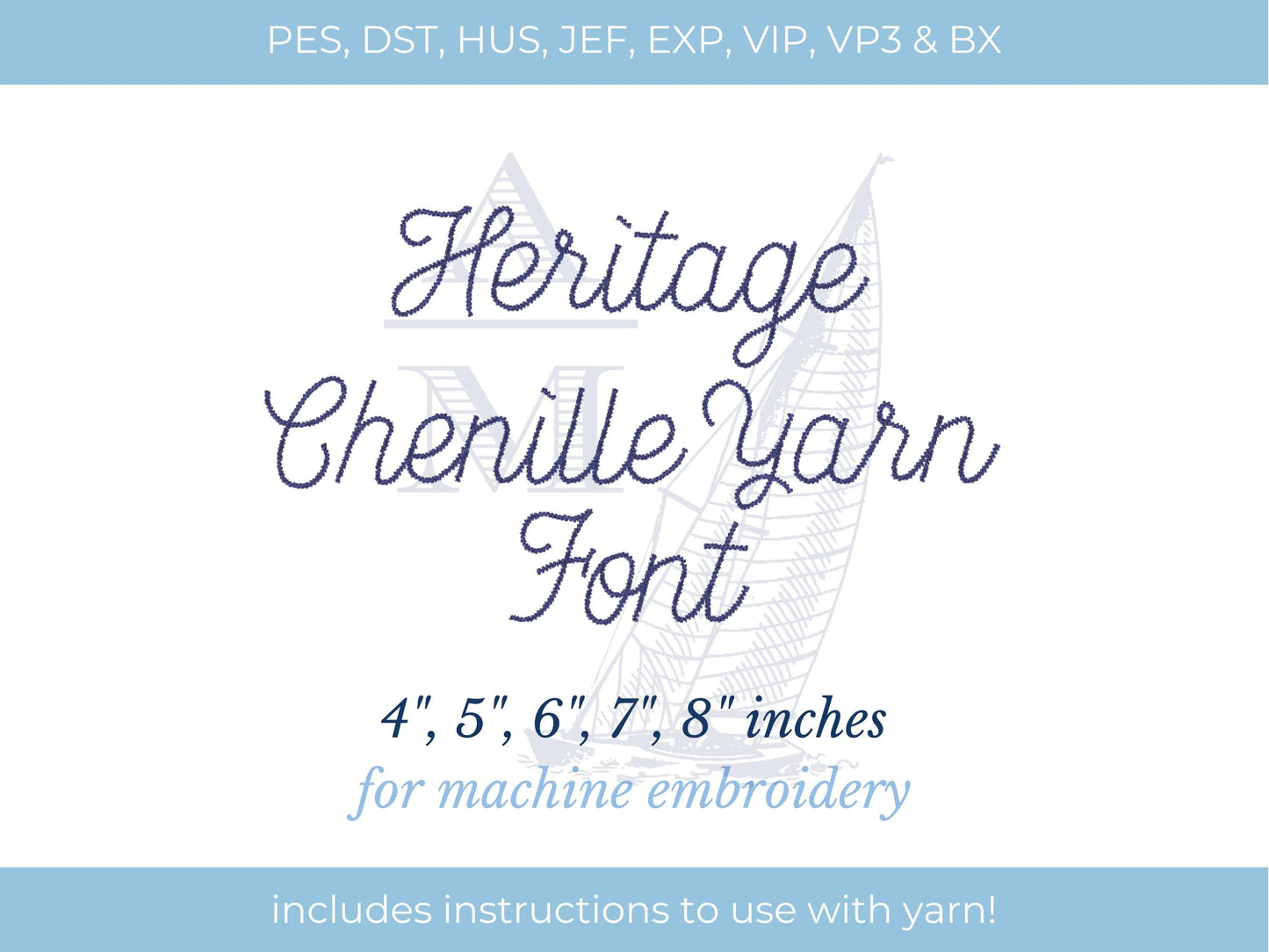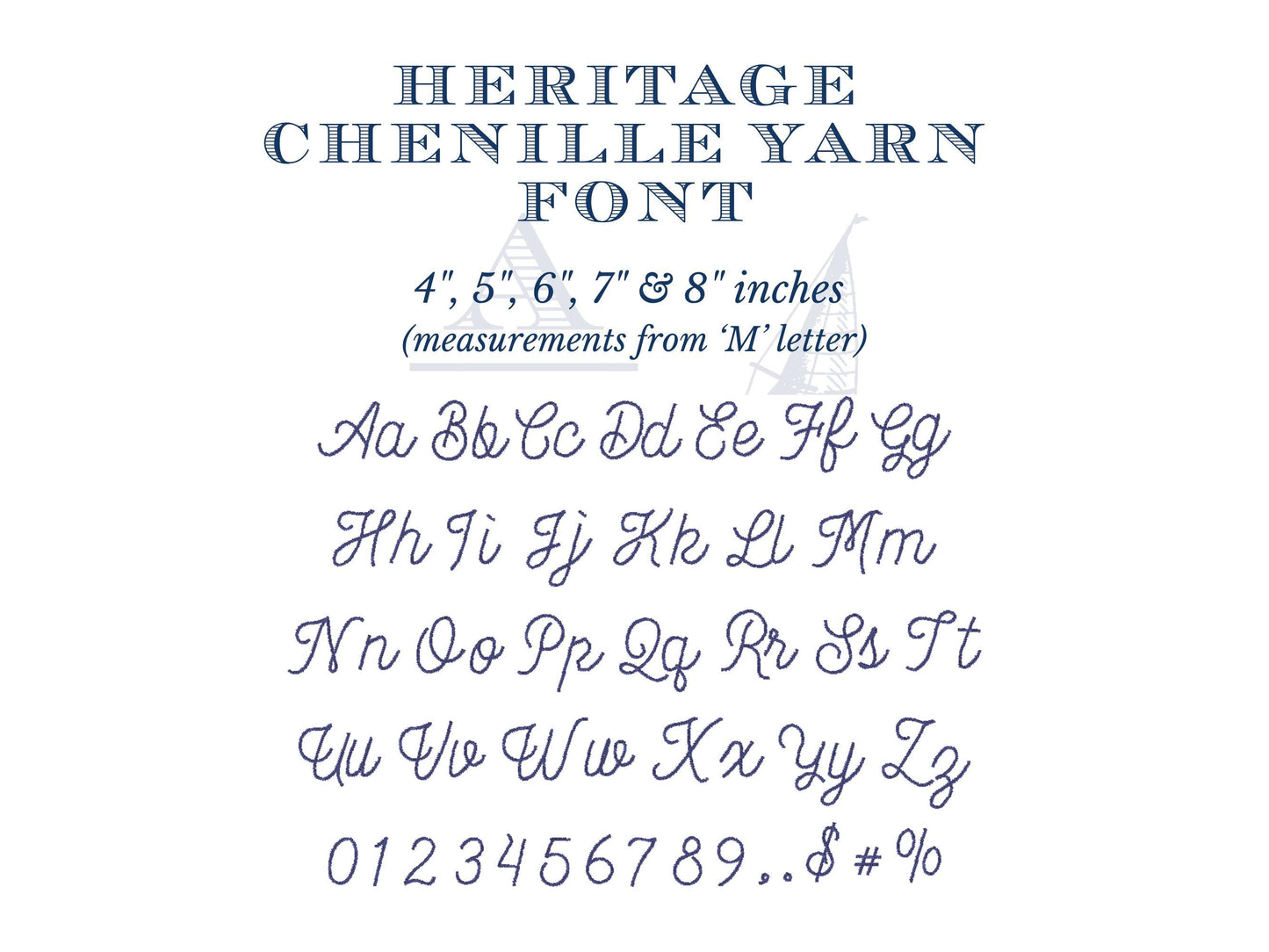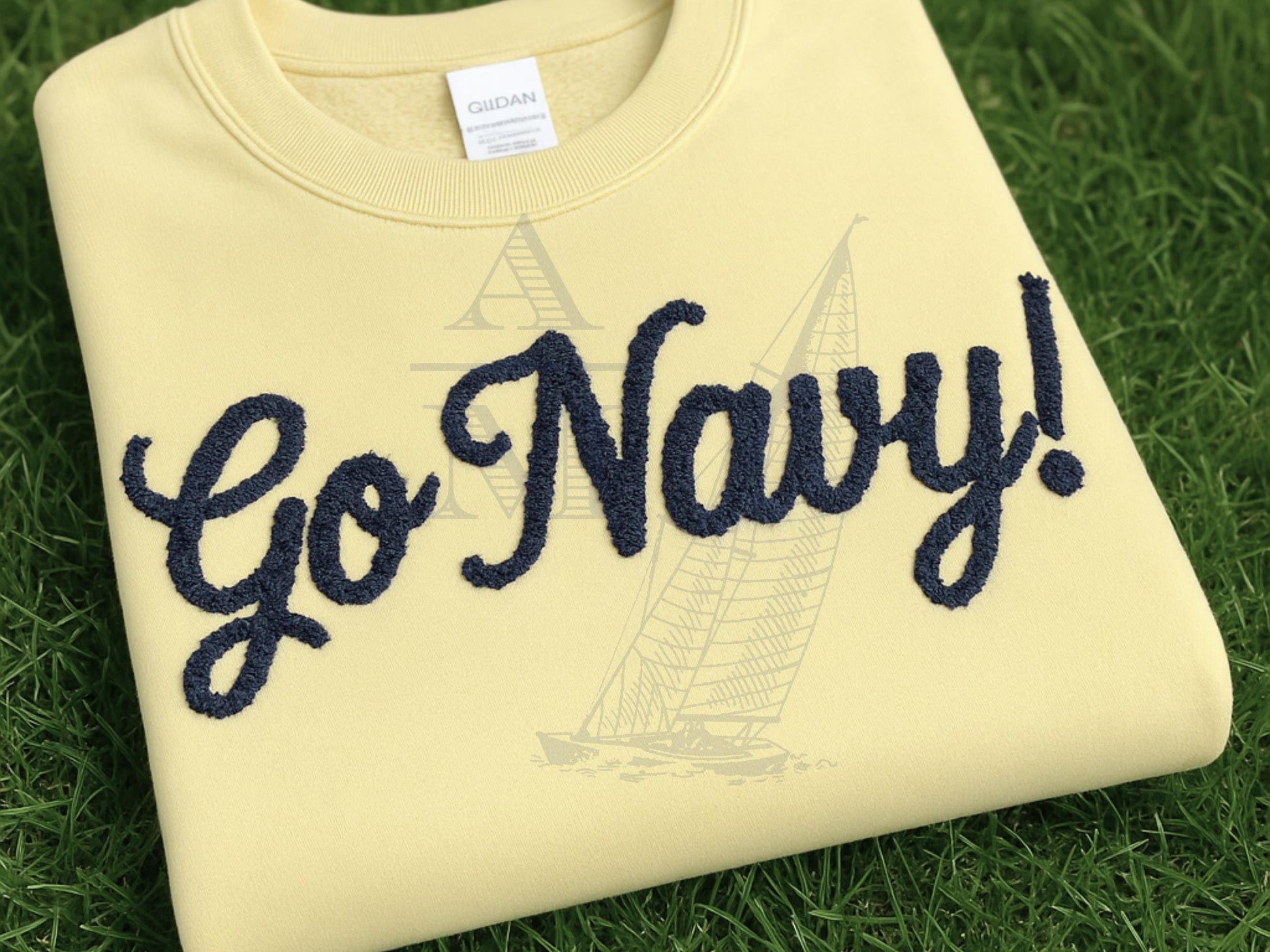
Yarn Embroidery Script Font, Heritage Chenille Applique Machine Embroidery Font by Annapolis Monograms, 4"-8", BX Included
Elevate your embroidery projects with the Heritage Chenille Yarn Embroidery Script Font by Annapolis Monograms. This beautifully crafted hand-written style font features a tight zig zag stitch design, specifically digitized to create trendy, personalized items with yarn. Perfect for adding a vintage flair to your creations, this versatile font seamlessly blends classic charm with modern appeal.
Designed for machine embroidery, this font is available in five large to extra large font sizes—4", 5", 6", 7", and 8"—with the size based on the height of the letter ‘M’. Each size allows you to customize your projects with ease, whether you‘re embellishing apparel, home decor, or personalized gifts. The included file formats—PES, DST, HUS, JEF, EXP, XXX, VP3, and BX—ensure compatibility with most embroidery machines.
- Handwritten script font with vintage and trendy appeal
- Designed with a tight zig zag yarn stitch for a textured, cozy look to use alone or with yarn
- Five size options for versatile project use